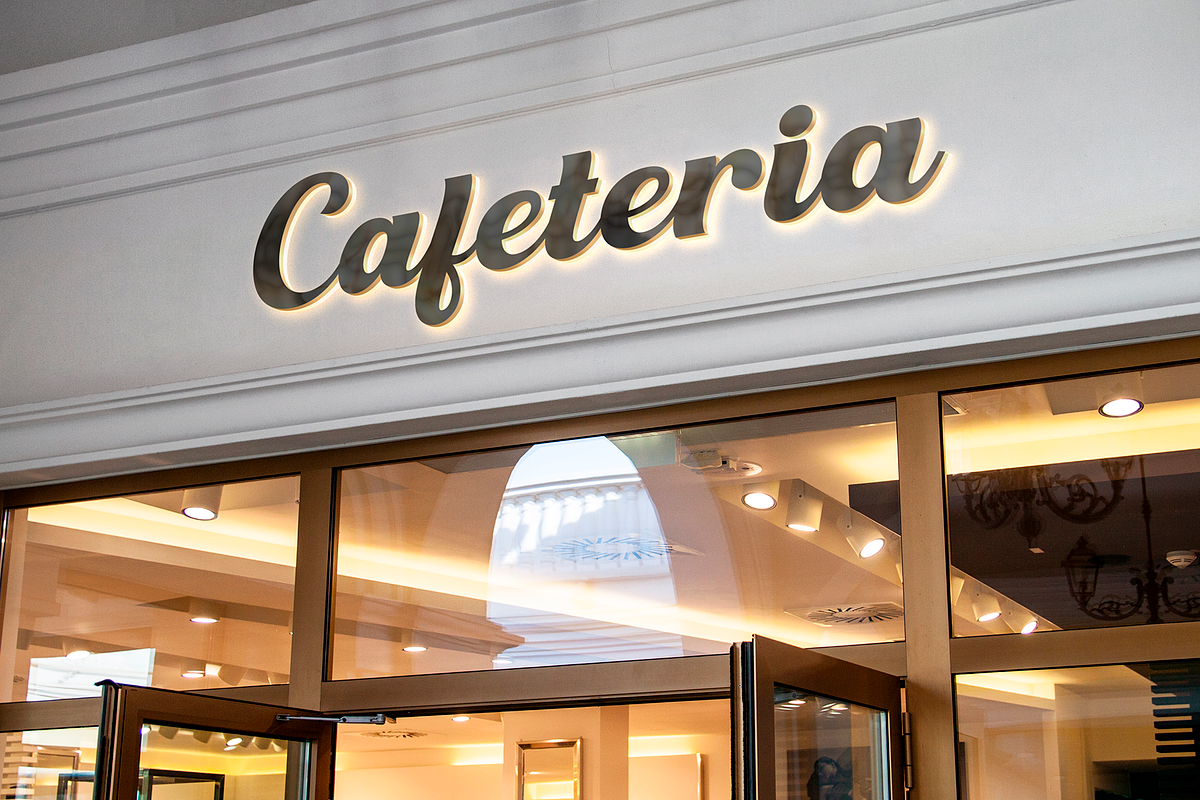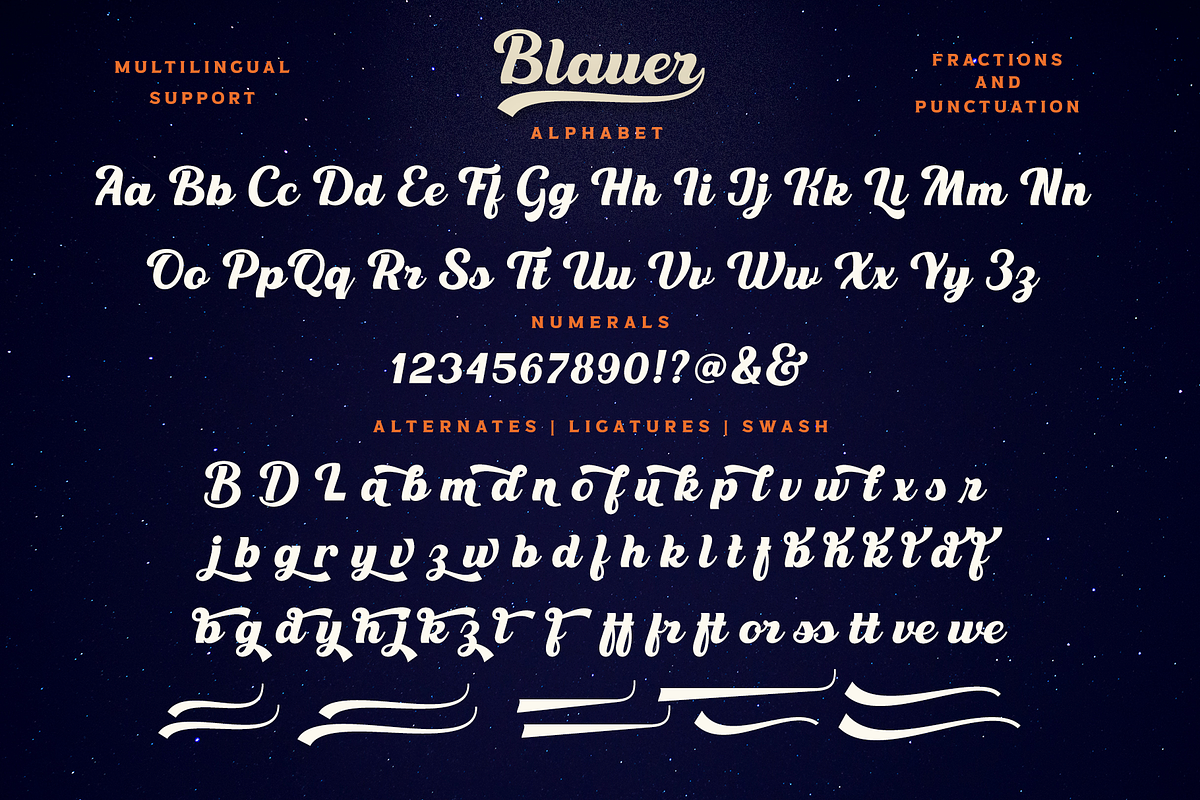
Blauer
Blauer - is a versatile, multi-purpose font that is perfect for vintage and modern design. it will perfectly fit into any project, with its help you can create beautiful logos, inscriptions, templates, signs, highlight text, use for outdoor advertising. also in this font there are alternates, ligatures and swash, that will help you make your design even more attractive.
Following international symbols support: ÀÁÂÃÄÅĄÇĆÈÉÊËĘÌÍÎÏÐÑŃŁÒÓÔÕÖØÙÚÛÜŚŠŸÝŹŻŽßàáâãäåçèéêëìíîïðñòóôõöøùúûüýÿąćęłńśšźżž
Full alphabet with Uppercase and Lowercase A-Z
Numbers, punctuation, fractions
Punctuation and mathematical symbols
swash